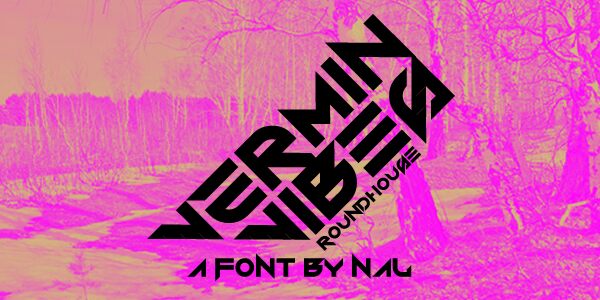
Vermin Vibes Roundhouse by Andrew McCluskey is a free modern Gothic display font with a severe geometric build. Its broad solid forms combine hard right angles with sweeping circular cuts, producing an industrial, futuristic silhouette. Repeated diagonal breaks make the lettering look sliced and mechanically assembled.
It is strongest on science-fiction game titles, electronic music packaging, and motorsport merchandise, where the compact shapes resemble machine-cut emblems. Those sharp cutaways can echo circuitry and angular illustration.
Vermin Vibes Roundhouse